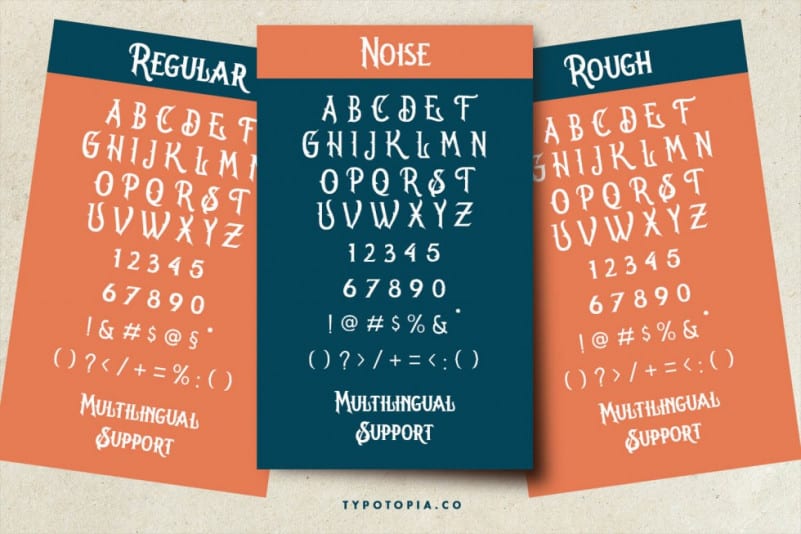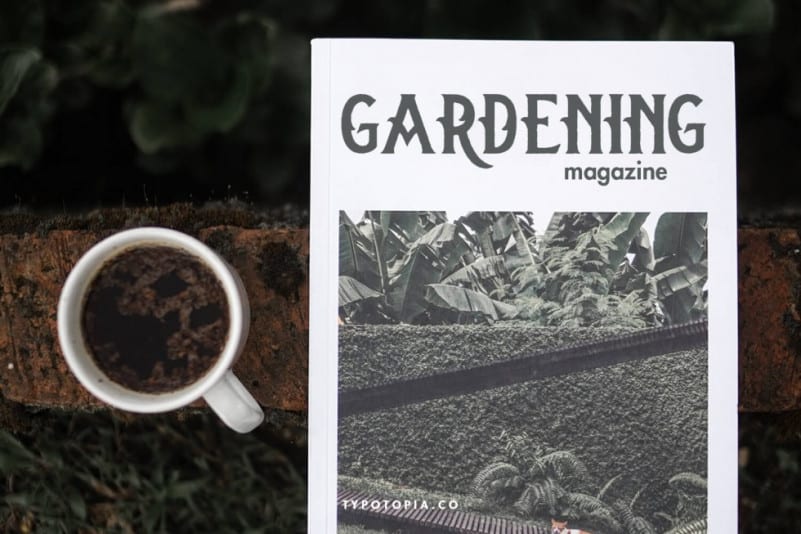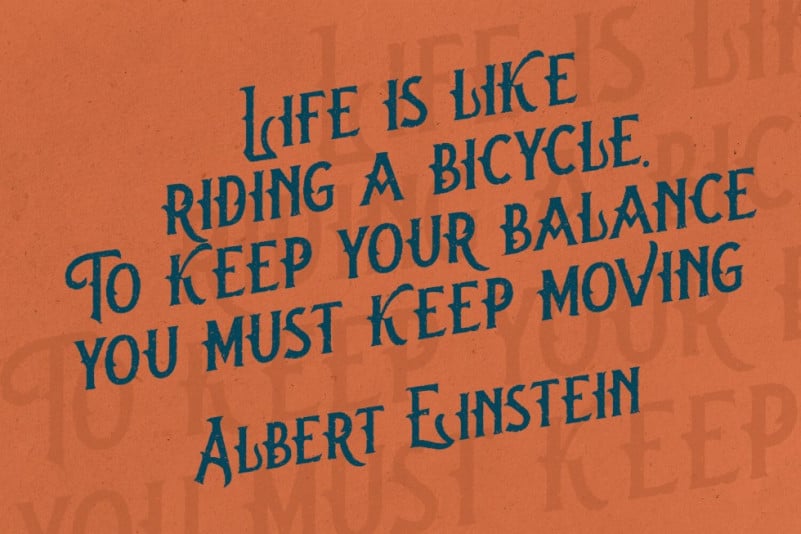
Oregon Display Font
Oregon Display Font is a Display Typeface with Semi-Vintage Style. This type of font perfectly made to be applied especially for logos, Poster, stationery, magazines, menus, books, invitations, greeting cards, packaging, labels, apparel, marketing, business cards, etc.